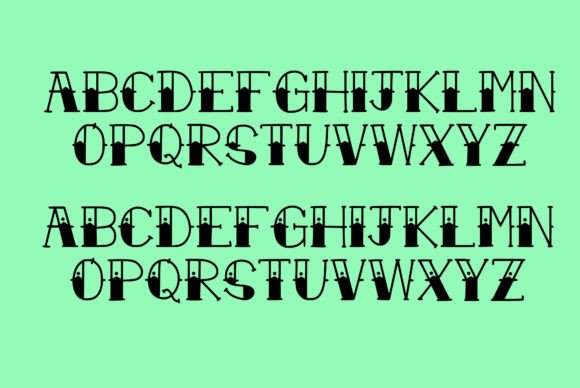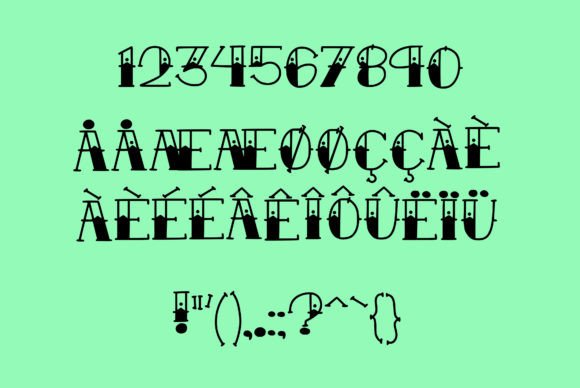
Introduction to Inked Font Font
Fonts play a crucial role in design, and the Inked Font font is a typeface that brings both character and versatility to any project. Whether you’re working on a branding project, a website, or a print design, the Inked Font font offers a unique style that can elevate your work.
βInkedβ is a tattoo-inspired display font that evokes the bold, edgy aesthetics of traditional tattoo lettering.
Its uppercase characters are tall, with intricate decorative elements, including spikes and dots, creating a distinctive appearance This font is perfect for projects that require a strong, rebellious, or artistic vibe, ideal for tattoo studios, posters, and creative branding materials.
Key Features of Inked Font Font
Why Choose Inked Font Font?
The Inked Font font is more than just a typeface β it’s a design tool that helps you communicate your message with style and clarity. Its unique character set and versatile design make it suitable for a wide range of applications, from elegant invitations to bold headlines.
With its carefully crafted letterforms and balanced proportions, the Inked Font font ensures readability and visual appeal across all mediums.
What makes Inked Font font special?
The Inked Font font stands out with its unique design, exceptional readability, and versatility across various design applications.